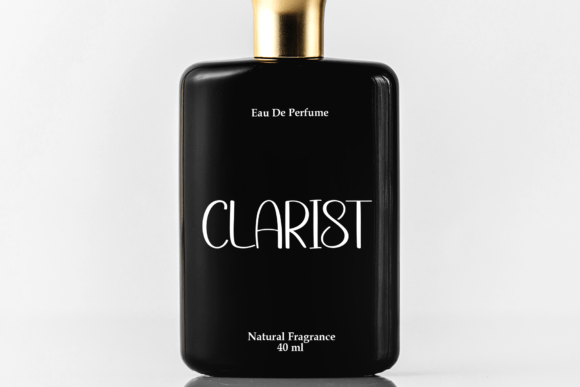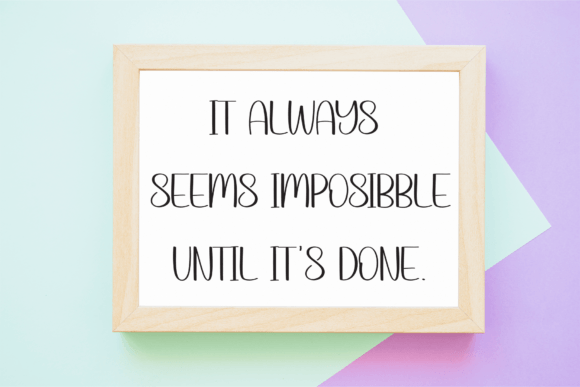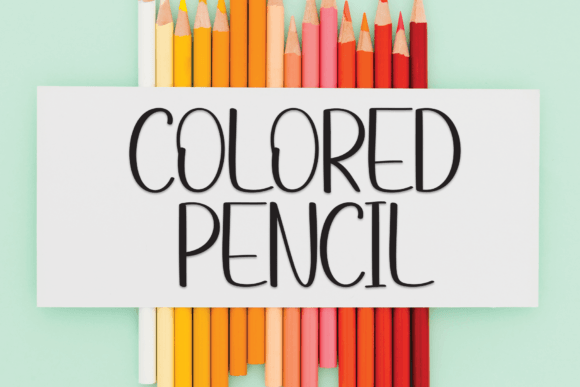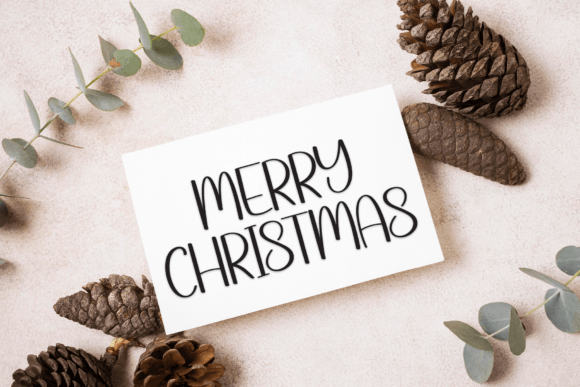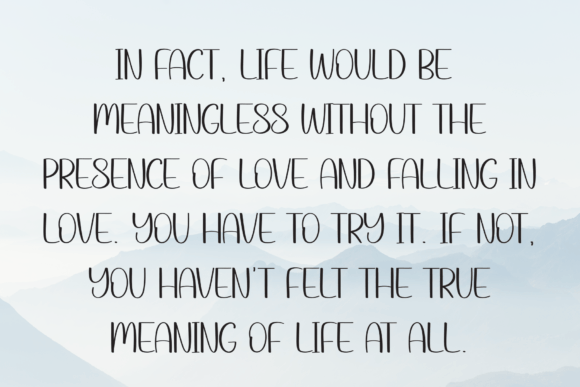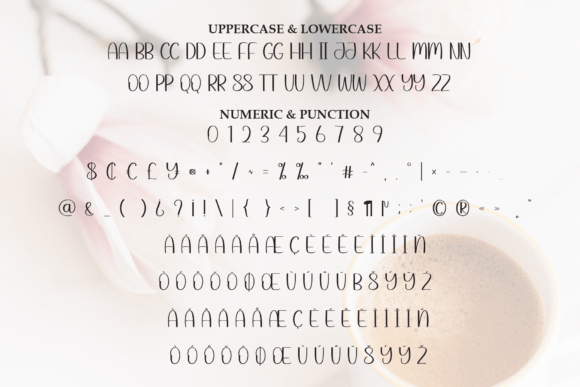
Welcome to the Cozy World of Hello Weekend Font
Have you ever found yourself rummaging through your stash of colorful pens and paper, searching for the perfect combination to create a one-of-a-kind card for a loved one? Maybe it’s a birthday, a wedding, or just a ‘thinking of you’ message. Whatever the occasion, there’s something special about putting pen to paper and making it personal.
That’s where the Hello Weekend Font comes in – a sweet and friendly handwritten font that adds a lovely touch to any design. This versatile font is perfect for writing wedding invitations, cards, or any other project that needs a little extra love. As a designer, you’ll appreciate the value of having a font that’s both cute and professional, making it easy to create beautiful and meaningful designs. The Hello Weekend Font is a valuable addition to any design library, and we’re excited to share its charms with you.
Hello Weekend Font Key Features
- Font Family: Hello Weekend Font is a unique, modern sans-serif font family designed for various applications, including digital and print media.
- Unique Characteristics: The font features a unique blend of geometric and organic shapes, giving it a modern and stylish appearance. It is ideal for use in branding, advertising, and digital products.
Hello Weekend Font Review
I recently had the chance to work with the Hello Weekend Font, and I’m excited to share my honest thoughts with you. Here’s what I think:
- The font has a playful, friendly vibe that’s perfect for casual designs, like social media graphics or event invitations.
- The characters are well-designed, with a nice balance of curves and straight lines that make them easy to read.
- The font family includes a range of weights and styles, giving you plenty of options to customize your design.
- The font may not be the best choice for formal or professional designs, as it can come across as a bit too casual.
- The font family could benefit from more language support, as some languages may not be fully supported.
Overall, I think the Hello Weekend Font is a solid choice for designers who need a friendly, approachable font for casual designs. While it may not be the best choice for every project, it’s a great addition to any designer’s toolkit.
Getting the Most Out of Hello Weekend Font
Here are some tips to help you get the most out of Hello Weekend Font:
- Use Hello Weekend Font for headings and titles to create a bold and eye-catching effect.
- Pair Hello Weekend Font with other fonts to create a unique and visually appealing design.
- Experiment with different font sizes and colors to achieve the desired effect.
Great Vibes Font is a modern, handwritten script font ideal for creating a relaxed and casual atmosphere. It’s perfect for designing social media graphics, posters, and other promotional materials where a friendly tone is desired. Compared to Hello Weekend Font, Great Vibes Font has a more playful and carefree feel, making it suitable for a younger audience.
Alex Brush Font is a elegant, brush-script font that adds a touch of sophistication to designs. It’s ideal for creating high-end branding materials, such as luxury product packaging and upscale advertising. Compared to Hello Weekend Font, Alex Brush Font has a more refined and polished feel, making it suitable for formal and professional applications.
Carolyna Pro Font is a modern, sans-serif font with a touch of elegance and sophistication. It’s perfect for designing clean and minimalistic interfaces, such as websites and mobile apps. Compared to Hello Weekend Font, Carolyna Pro Font has a more streamlined and modern feel, making it suitable for tech-savvy audiences.